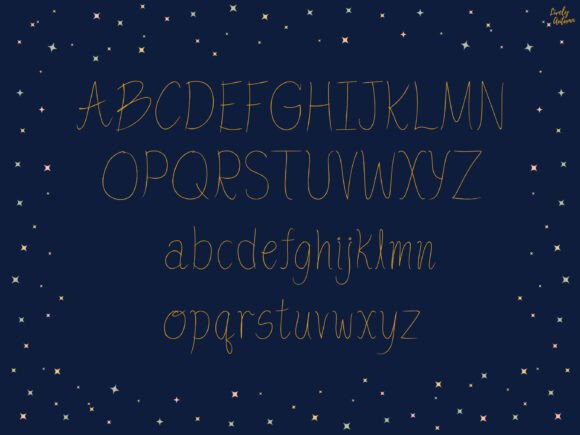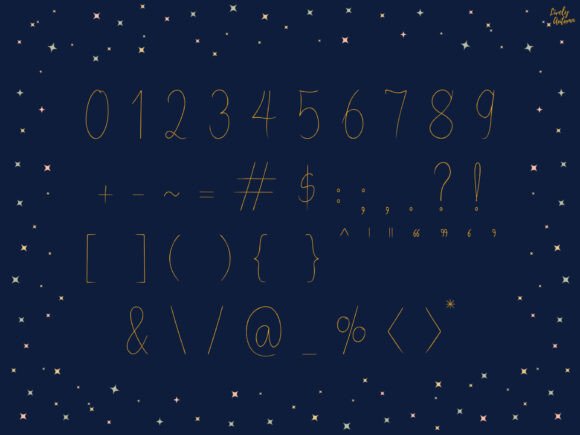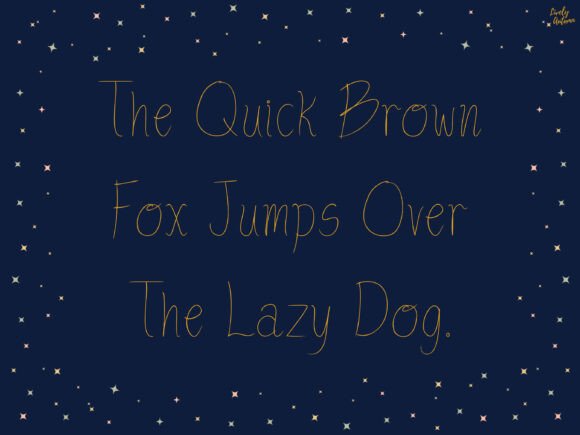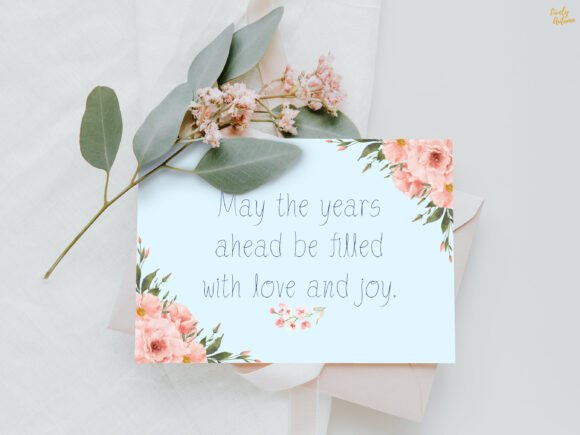
Glamorous Night Font: Elevate Your Designs with Elegance
Are you looking for a font that exudes luxury, sophistication, and glamour? Look no further than the Glamorous Night Font. This elegant, flowing handwriting font is perfect for creating stunning invitations, upscale event materials, and various projects that demand a touch of refinement. With its delicate thin-line strokes, Glamorous Night Font is sure to elevate your designs and leave a lasting impression.
The Perfect Font for Upscale Events
Glamorous Night Font is specifically designed for galas, weddings, and other high-end events. Its flowing script and delicate strokes evoke a sense of luxury and sophistication, making it ideal for:
- Wedding invitations and save-the-date cards
- Gala and charity event invitations
- Formal dinner party invitations
- Social media graphics and event promotions
Beyond Invitations: Endless Design Possibilities
While Glamorous Night Font is perfect for invitations, its versatility extends far beyond. You can use it to create a wide range of designs, including:
- Posters and flyers for upscale events
- Social media graphics and quotes
- Journals and planners
- Greeting cards and stationery
- Branding and packaging materials
Why Choose Glamorous Night Font?
So, what sets Glamorous Night Font apart from other fonts? Here are just a few reasons why designers and crafters love this elegant font:
- Elegant and sophisticated: Glamorous Night Font is perfect for designs that demand a touch of luxury and refinement.
- Versatile: Use it for invitations, posters, social media graphics, and more.
- Easy to read: Despite its delicate strokes, Glamorous Night Font is surprisingly easy to read, even at smaller sizes.
- Unique and eye-catching: Stand out from the crowd with a font that’s sure to turn heads.
Tips for Using Glamorous Night Font
To get the most out of Glamorous Night Font, here are a few design tips to keep in mind:
- Pair with contrasting fonts: Combine Glamorous Night Font with a bold, modern font for a striking contrast.
- Use it sparingly: While Glamorous Night Font is elegant, too much of it can be overwhelming. Use it as an accent font to add a touch of sophistication.
- Experiment with colors: Glamorous Night Font looks stunning in metallic colors, pastels, and rich jewel tones.
In conclusion, Glamorous Night Font is a versatile and elegant font that’s perfect for designers and crafters looking to add a touch of luxury to their designs. With its delicate thin-line strokes and flowing script, it’s ideal for upscale events, invitations, and various projects. Whether you’re creating wedding invitations, social media graphics, or branding materials, Glamorous Night Font is sure to elevate your designs and leave a lasting impression.